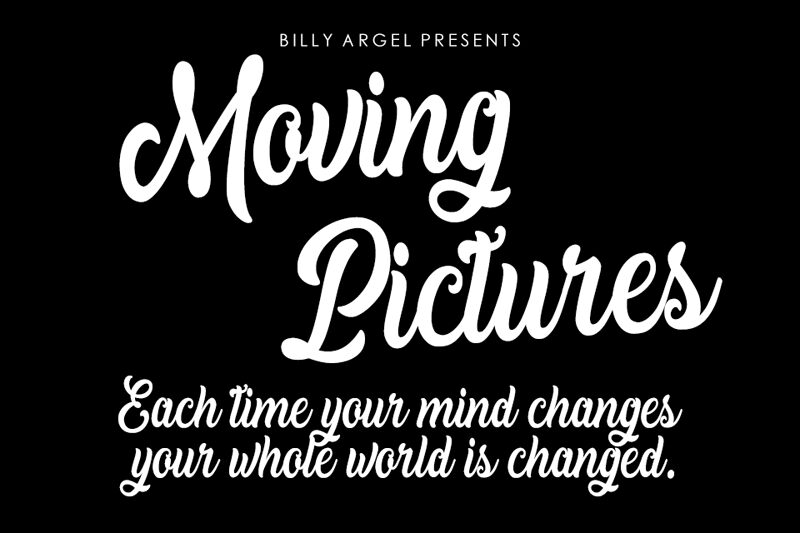
Moving Pictures is a captivating handwritten font designed by Billy Argel. Its flowing, script-like strokes convey a sense of movement and fluidity, evoking a sense of artistry and expression. The font's organic, brush-like appearance lends itself well to a wide range of applications, from editorial design and branding to event invitations and product packaging. With its distinctive character and versatility, Moving Pictures promises to add a touch of elegance and personality to any creative project.
The font's unique characteristics, such as the slight slant, varied line weights, and playful flourishes, contribute to its dynamic and engaging aesthetic. This font would excel in scenarios where a personal, handcrafted feel is desired, allowing designers to infuse their work with a touch of authenticity and individuality.